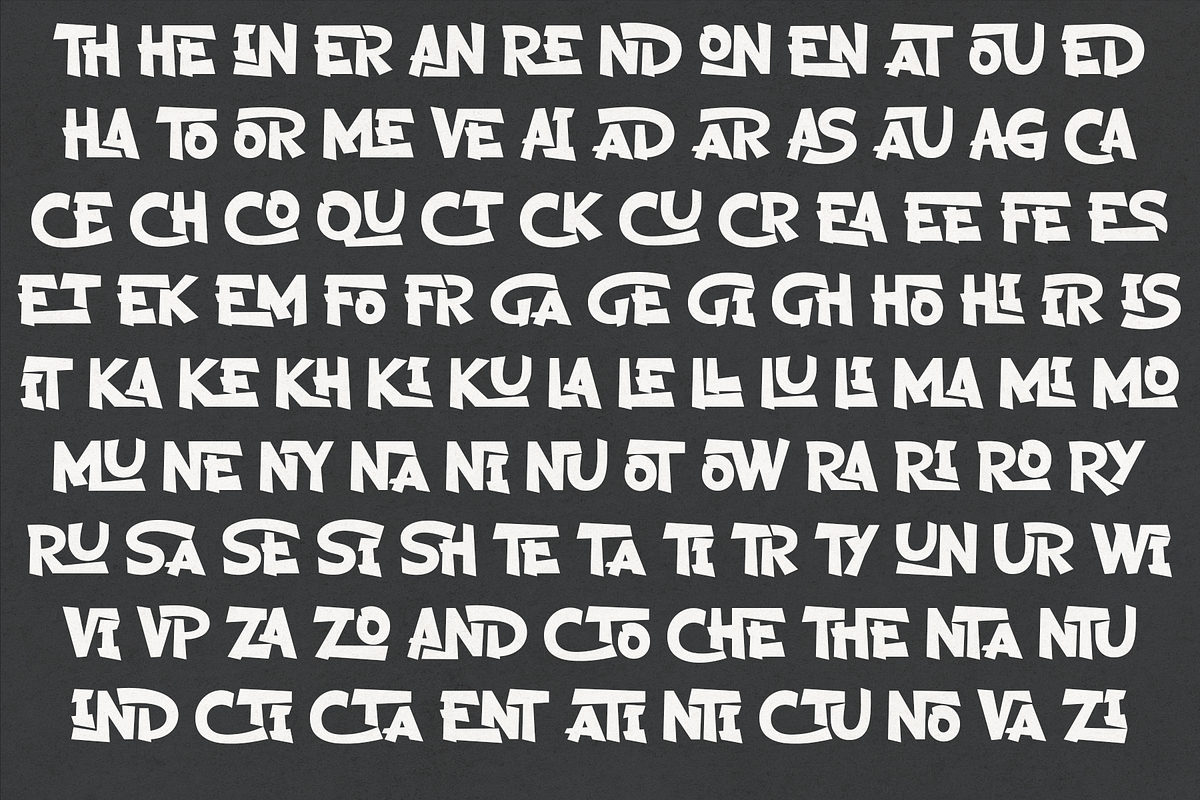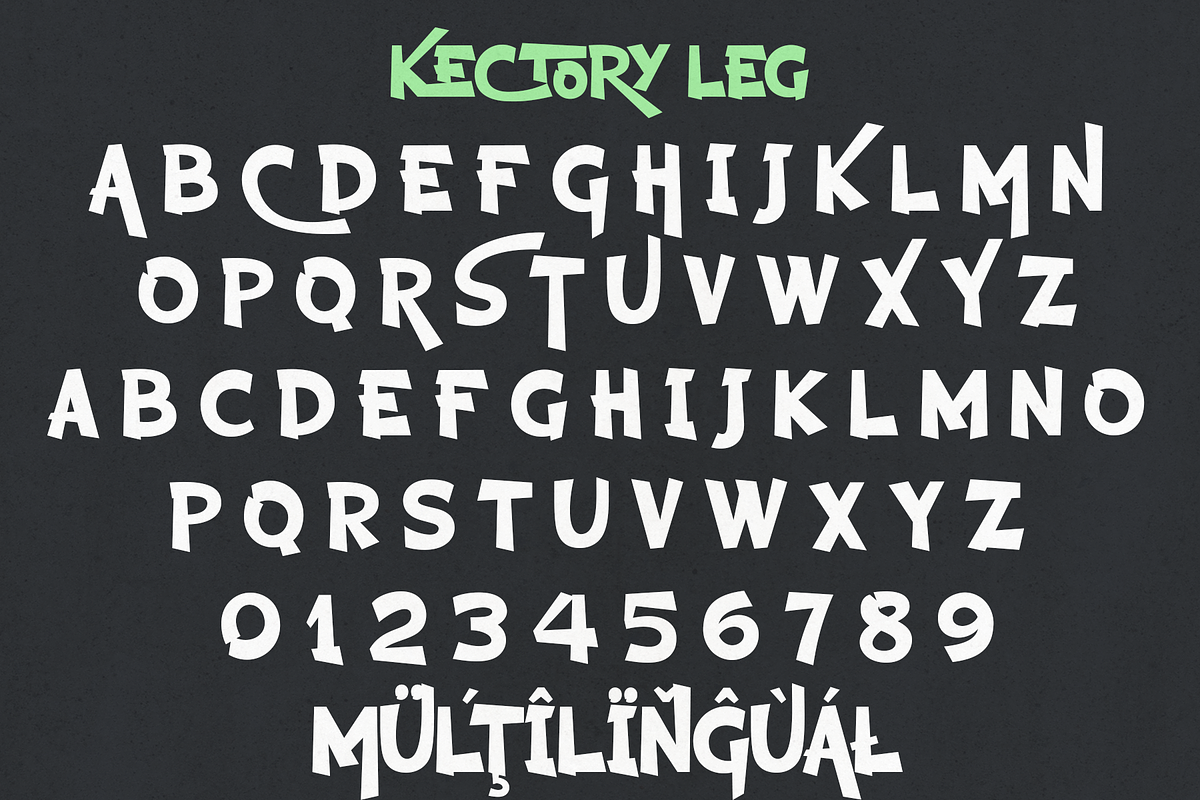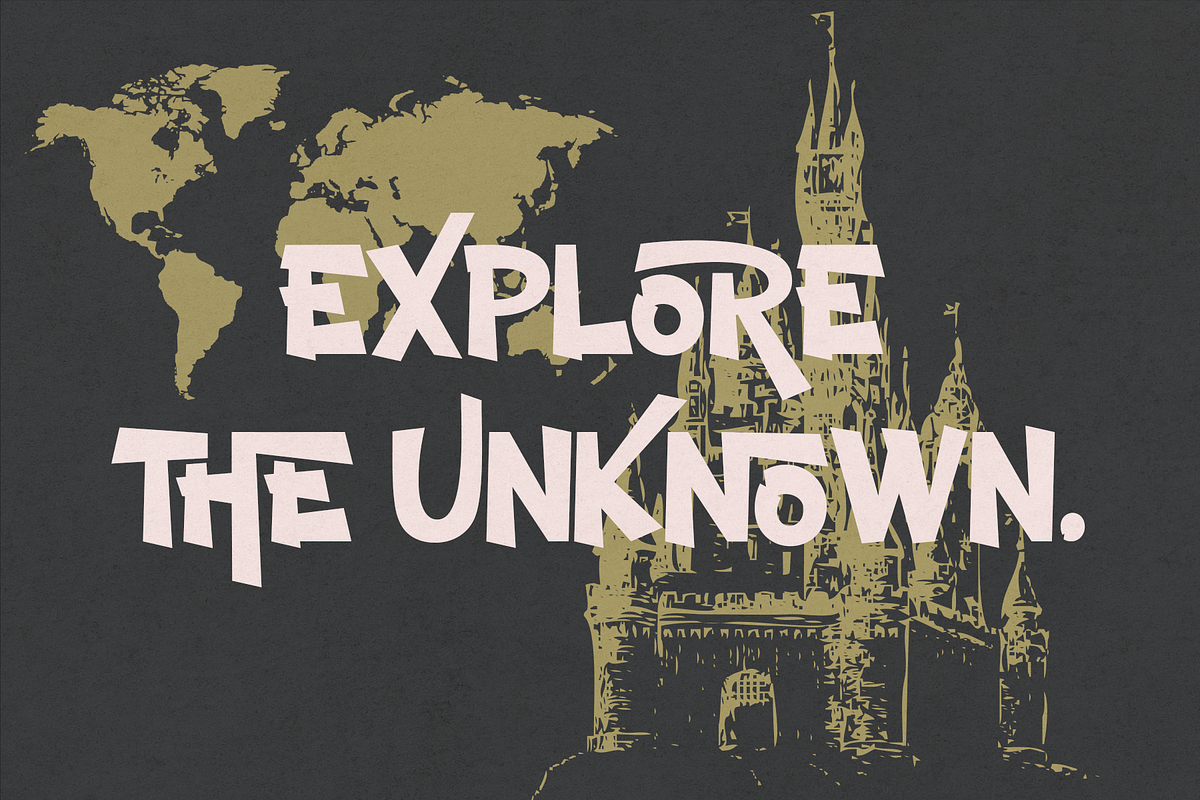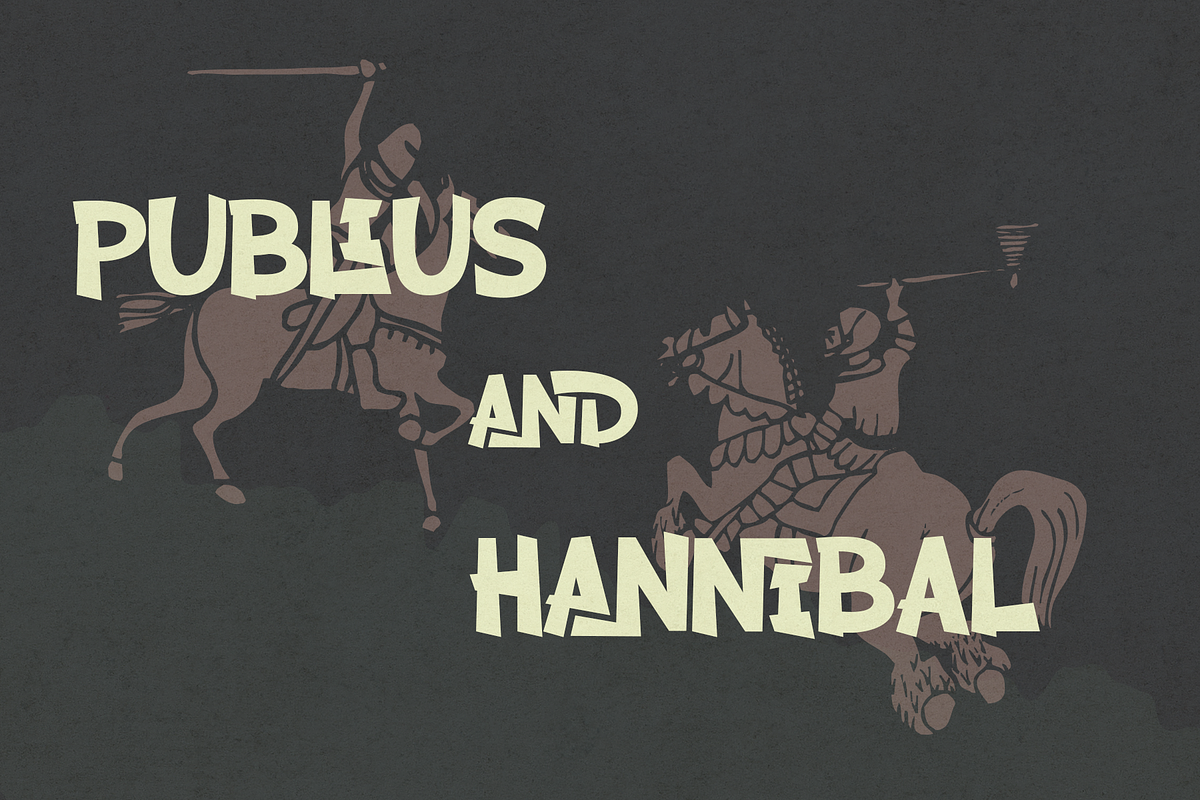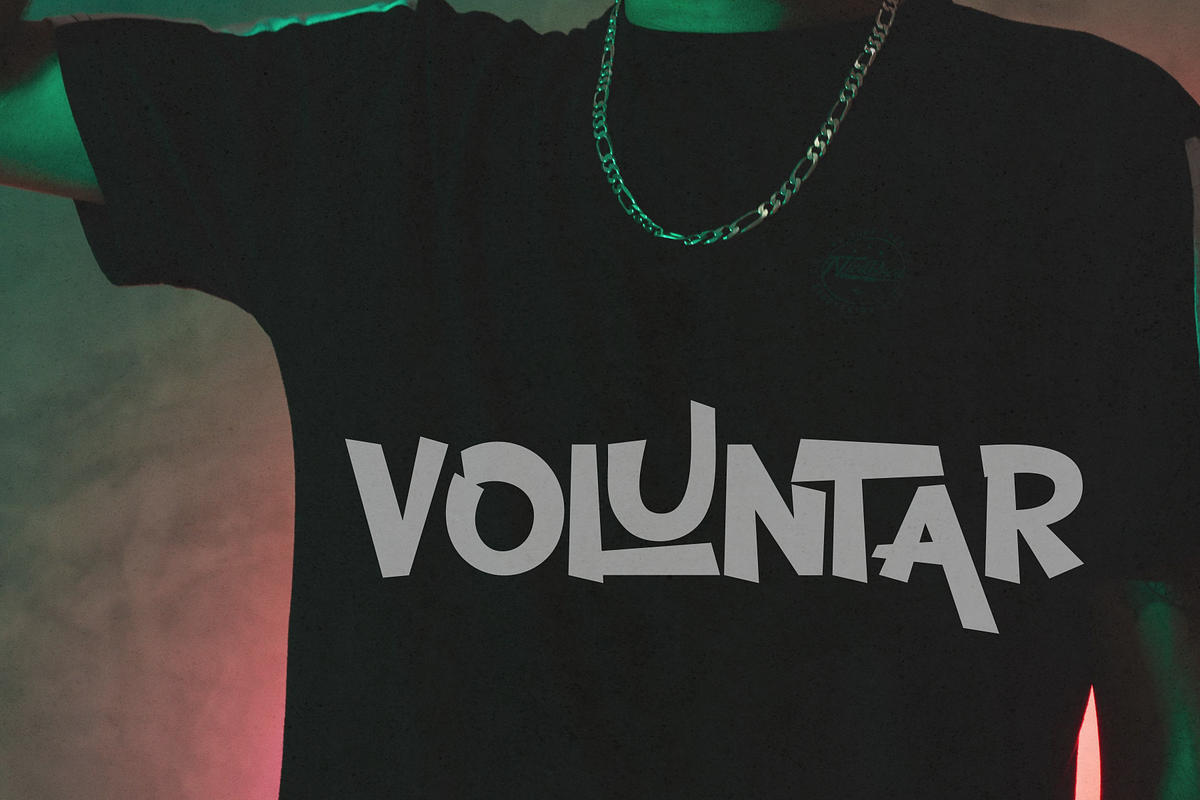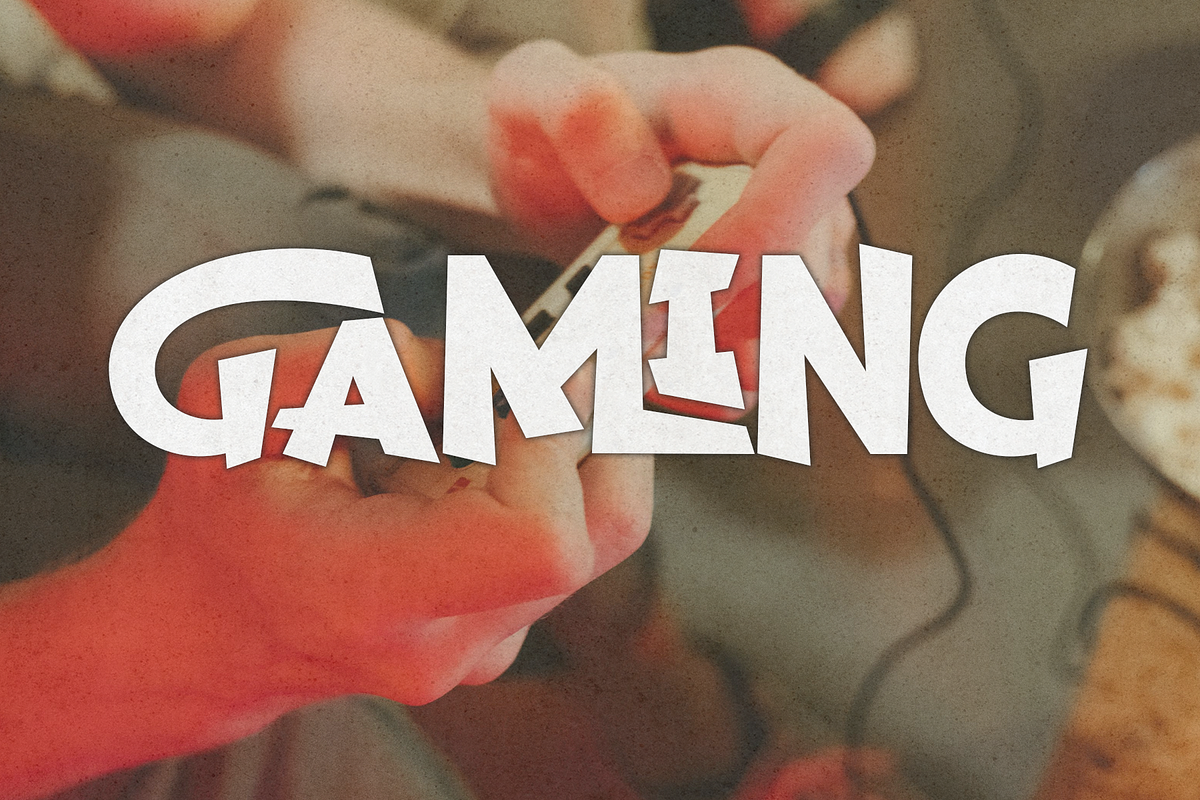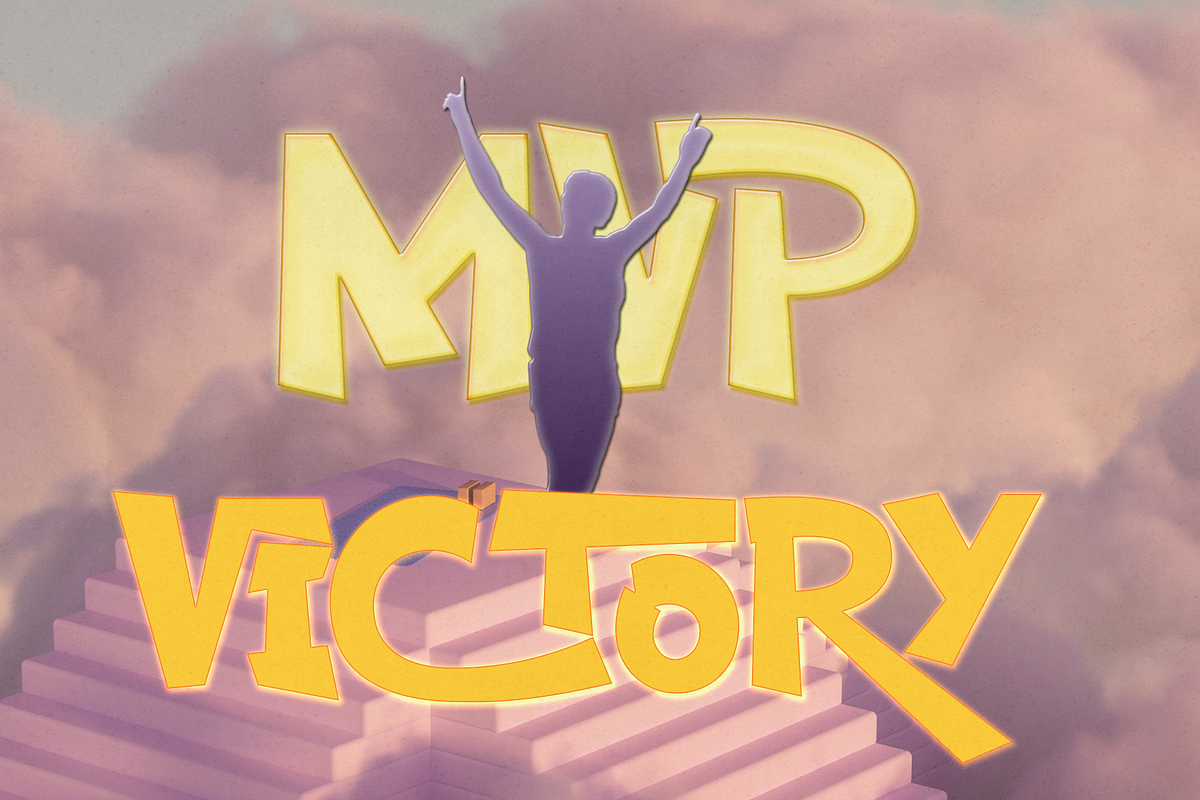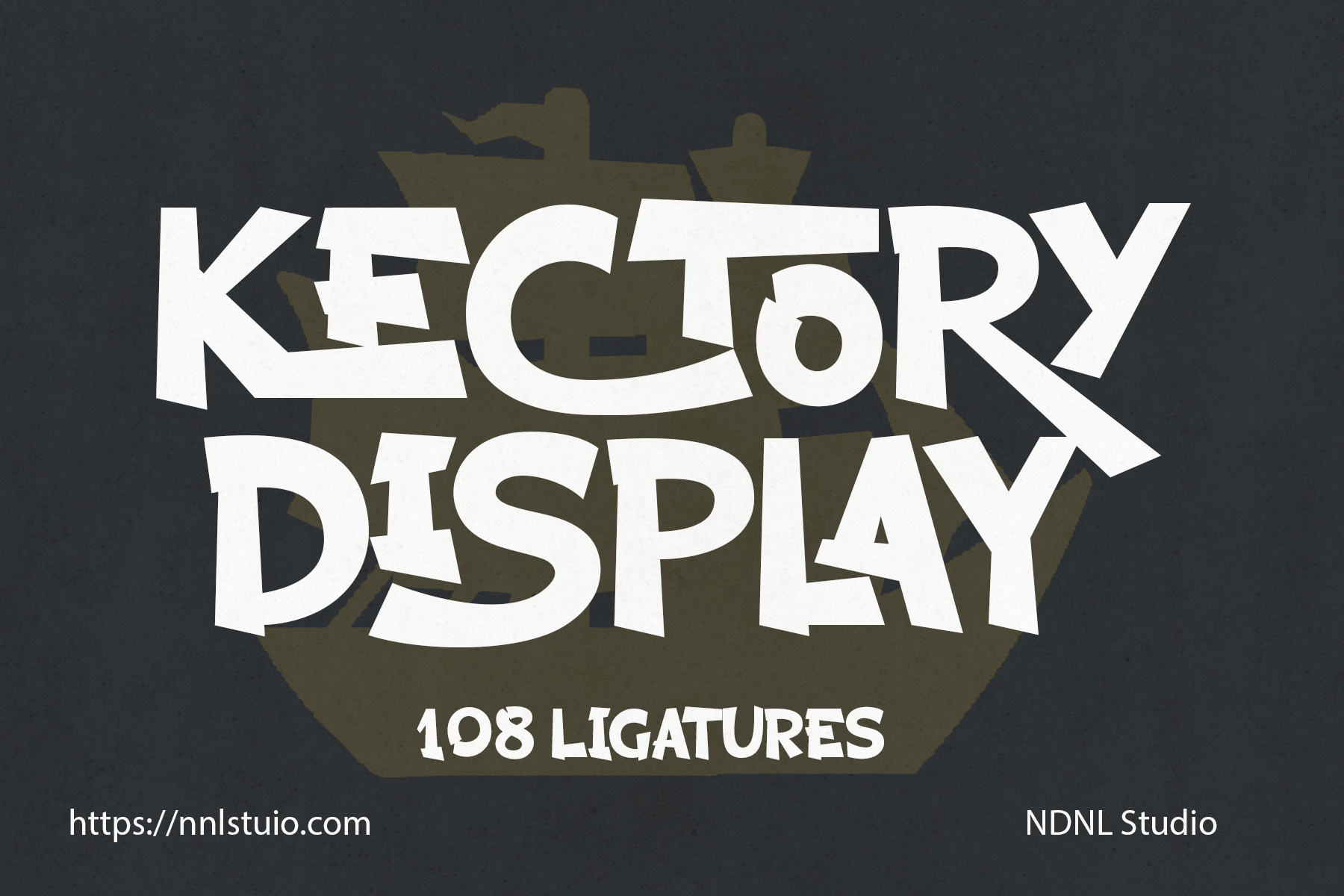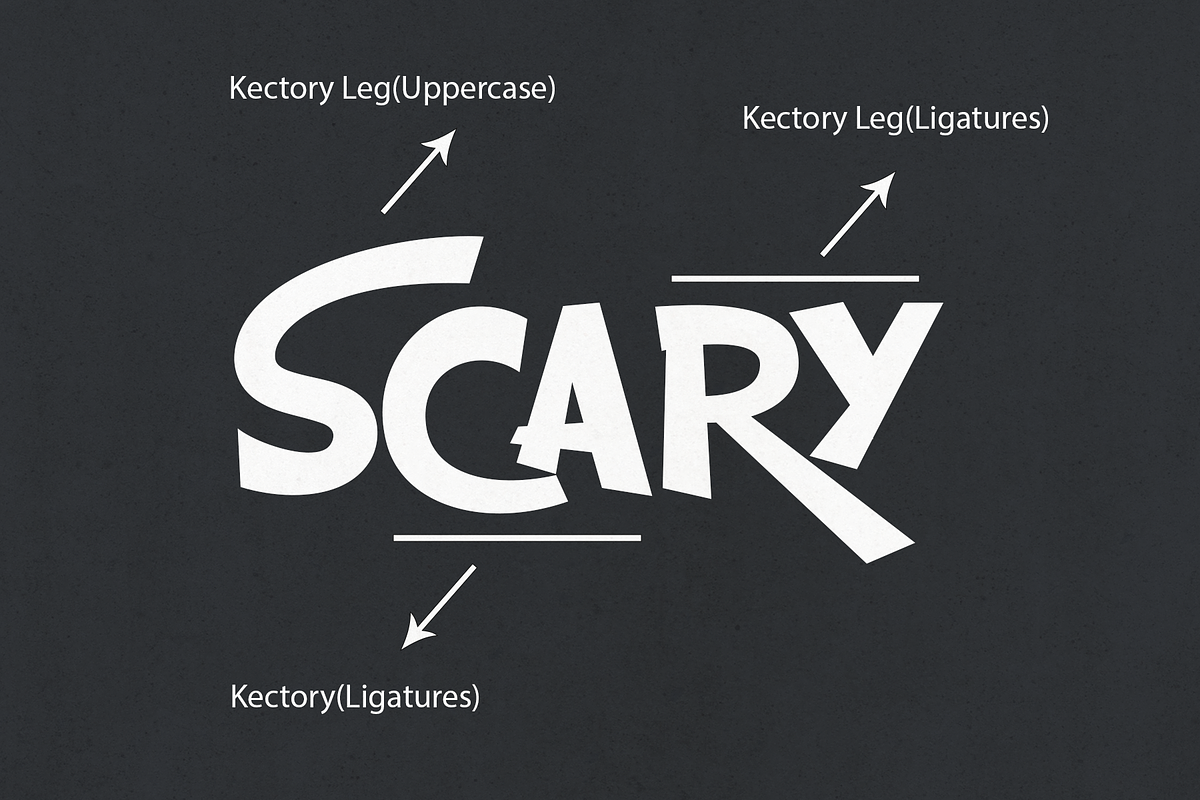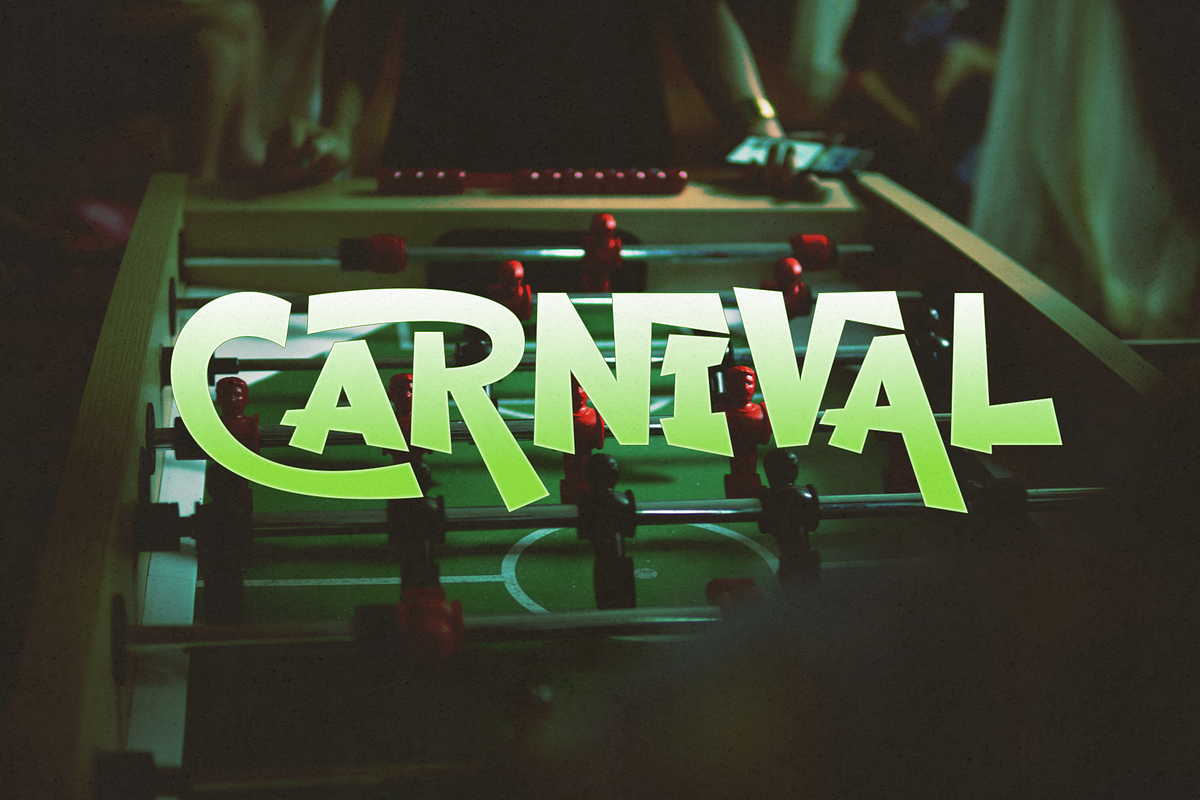
Kectory – Display Font
Kectory is a bold display font packed with personality and playful energy. Designed with chunky letterforms, expressive curves, and 108 creative ligatures, Kectory transforms ordinary text into eye-catching typography full of movement and charm.
Whether you’re creating logos, children’s designs, gaming graphics, posters, or social media content, Kectory adds a fun and memorable look to every project. Its unique ligatures create natural letter combinations, giving your text a custom-crafted appearance with minimal effort.
If you’re looking for a font that stands out with confidence and creativity, Kectory is the perfect choice for bold, expressive designs.